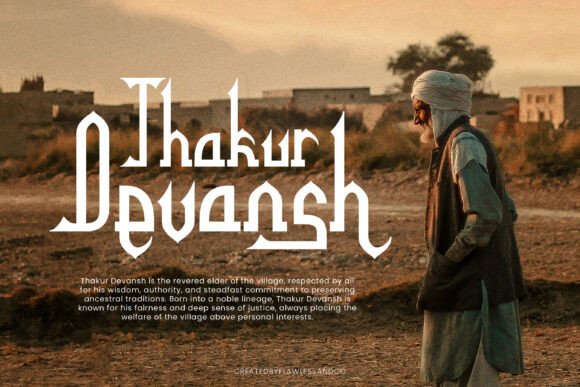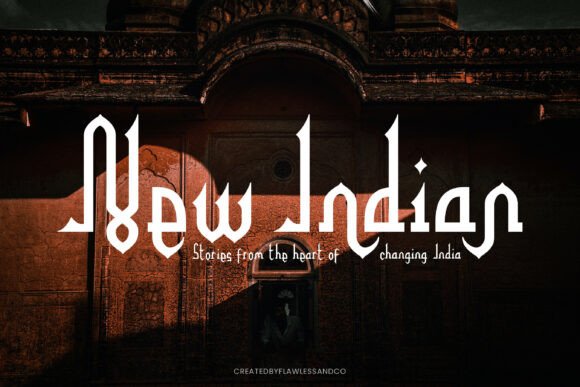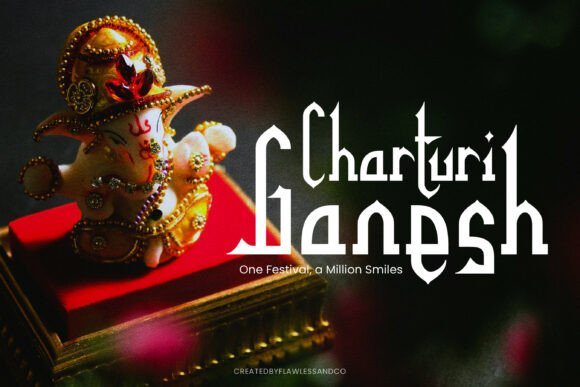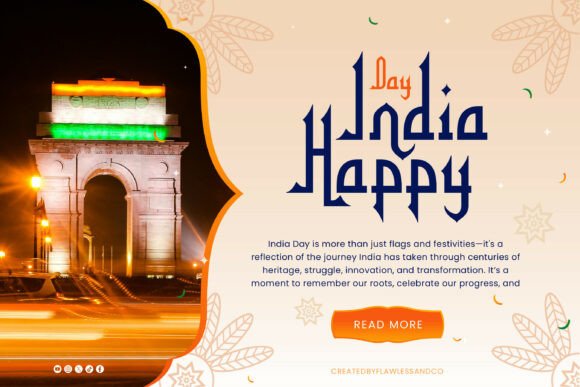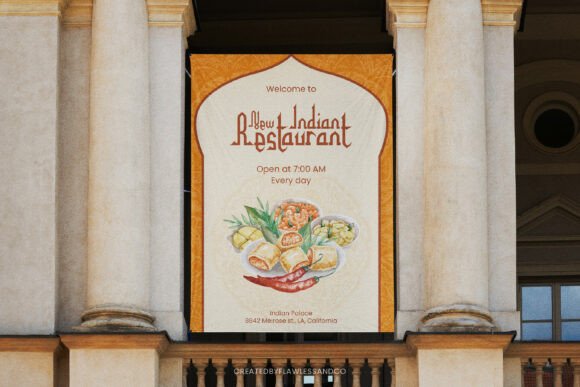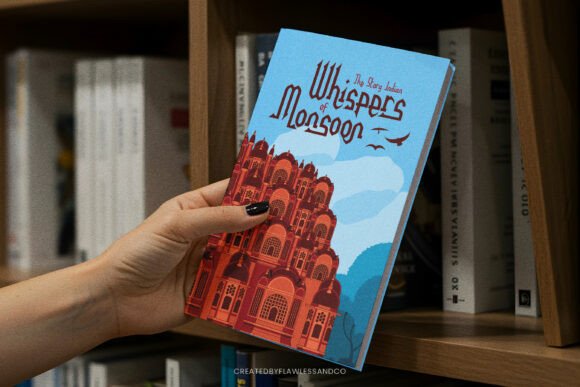
Introduction to Nishwary Font
Imagine you’re surrounded by vibrant colors, intricate patterns, and the rhythmic beats of traditional Indian music. You’re in the midst of a cultural celebration, and the air is filled with the excitement of storytelling and heritage. As a designer, you’re tasked with capturing this essence in a visual project, and you know exactly what you need – a font that exudes the grandeur and charm of Indian calligraphy. That’s where the Nishwary Font comes in, a stunning typeface that seamlessly blends traditional script aesthetics with a touch of gothic influence.
The Nishwary Font is more than just a design resource – it’s a key to unlocking the secrets of India’s rich cultural heritage. With its high-quality glyphs and ornamental details, this font is perfect for designers looking to add a touch of elegance to their creative projects. Whether you’re working on a branding piece, a cultural event promotion, or a free download for your audience, the Nishwary Font is sure to make a lasting impression.
Key Features of Nishwary Font
- High-quality font designed for creative projects, ideal for use in graphic design, digital art, and other design resources.
- Unique and stylish design with a transparent background, allowing for maximum flexibility and customization in your creative projects.
- Perfect for use in digital design, print media, and web development, making it a valuable design resource for professionals and hobbyists alike.
Honest Review: Nishwary Font
I recently came across the Nishwary Font and I must say, it’s a gem for any designer working on a creative project. The high quality of the font is immediately noticeable, making it a great addition to any design resource.
One of the standout features of the Nishwary Font is its transparent background, which makes it easy to use and customize. This is especially useful for designers who need to create designs with complex backgrounds.
Here are some of the things that work well with the Nishwary Font:
- ✨ High quality design that looks great on any project
- ✨ Transparent background for easy customization
However, there are a few limitations to the Nishwary Font:
- ⚠️ Limited character set, which may not be suitable for large-scale projects
- ⚠️ Not suitable for body text, as it may be difficult to read at smaller font sizes
Overall, the Nishwary Font is a great design resource for designers working on creative projects. While it has some limitations, its high quality and transparent background make it a valuable addition to any design library.
How to Use Nishwary Font
The Nishwary Font is a high-quality design resource that offers a unique and creative touch to any project. With its transparent background, this font is perfect for designers who want to add a touch of elegance to their work.
Tips for Getting the Most Out of Nishwary Font
To get the most out of the Nishwary Font, try the following tips:
- Use the font in combination with other design elements, such as images and graphics, to create a visually appealing design.
- Take advantage of the font’s transparent background to create a sense of depth and dimension in your design.
The Nishwary Font is perfect for a variety of design projects, including:
- Business cards and marketing materials.
- Blog posts and social media graphics.
Yes, the Nishwary Font is designed to be used with transparent backgrounds. The font files include a transparent background, making it perfect for use in creative projects that require a clean and minimalist look.
Is the Nishwary Font suitable for high-quality printing?
Yes, the Nishwary Font is designed to be high-quality and suitable for printing. It’s been carefully crafted to ensure that it looks great on both screen and paper, making it perfect for use in brochures, business cards, and other print materials.